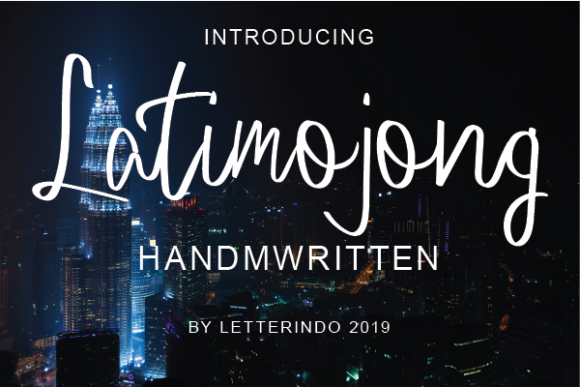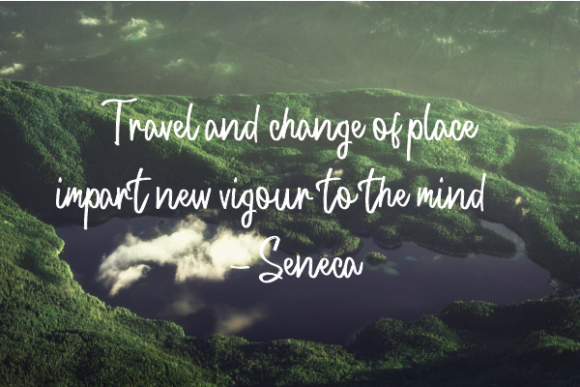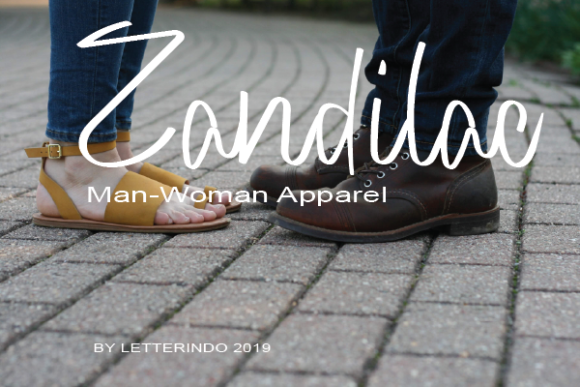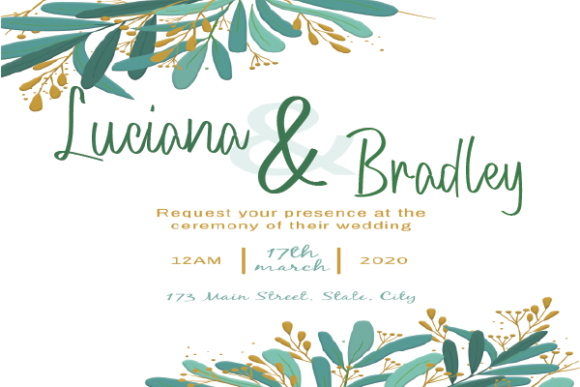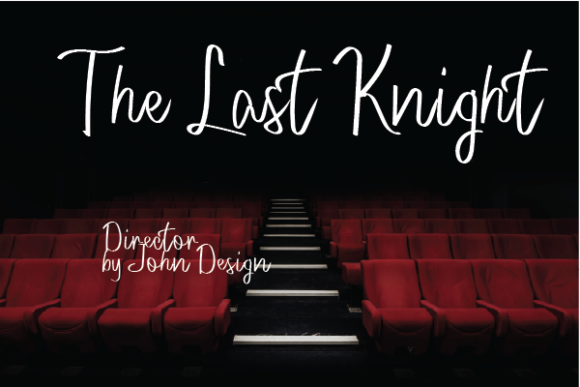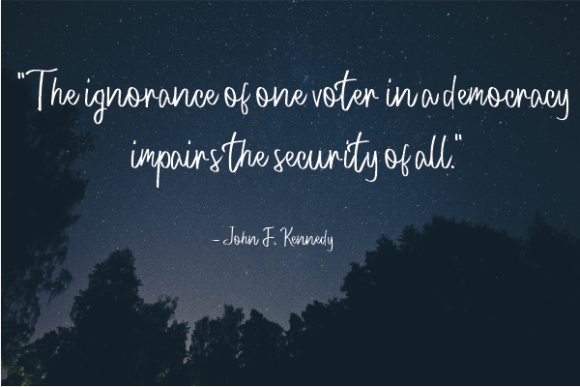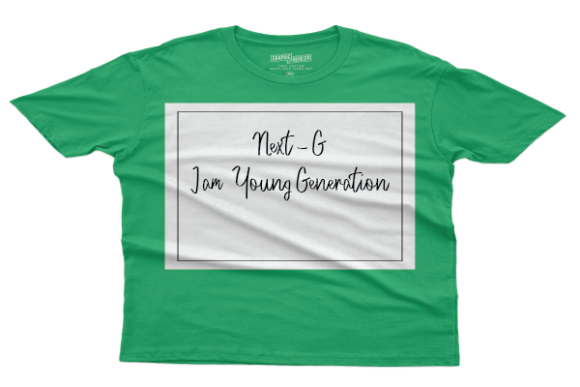
Latimojong Font
About Latimojong Font
Latimojong is a gorgeous upscale script that feels both familiar and new. This uniquely designed font will take any design idea into a true standout!